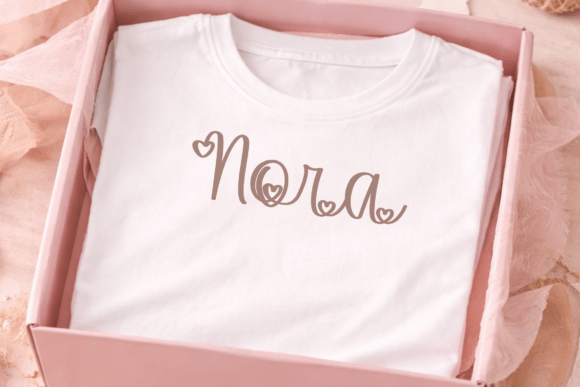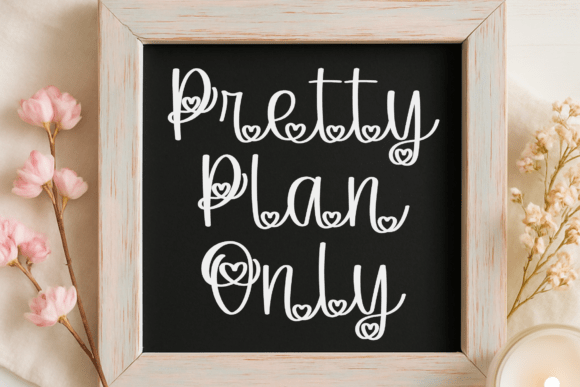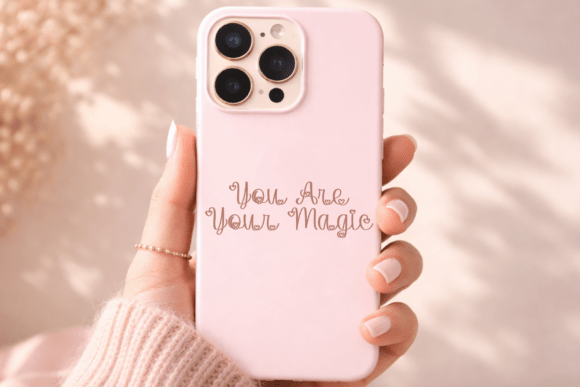
Introduction to Heart Script Font
Who hasn’t felt the excitement of brainstorming a new creative project? Maybe it’s a custom wedding invitation, a heartfelt birthday card, or a sweet social media post. As designers, we know that finding the right font can make all the difference in bringing our ideas to life. And that’s where the enchanting Heart Script Font comes in – a delightful, high-quality design resource that’s sure to capture the hearts of your audience.
With its adorable heart-shaped details and soft, flowing strokes, Heart Script Font is the perfect addition to any creative project. Whether you’re working on a romantic design, a Cricut craft, or a planner decoration, this charming font is sure to add a touch of warmth and personality to your work. And the best part? It’s available for a free download, making it an accessible and valuable resource for designers of all levels.
Key Features of Heart Script Font
- High-quality, handwritten font ideal for creative projects
- Designed with a unique, elegant style that’s perfect for wedding invitations, quotes, and other romantic designs
Honest Review: Heart Script Font
I recently came across the Heart Script Font, a beautiful, high-quality font that’s perfect for adding a touch of elegance to your creative project. The font features a stunning, handwritten style that’s reminiscent of classic love letters.
- Beautiful, high-quality design that’s perfect for romantic or whimsical projects.
- Can be easily used for a variety of creative projects, including invitations, social media graphics, and more.
While the Heart Script Font is a beautiful font, it does have some limitations. One of the main issues is that it may not be suitable for large blocks of text, as it can become difficult to read.
Overall Impression
Overall, I’m really impressed with the Heart Script Font. It’s a beautiful, high-quality font that’s perfect for adding a touch of elegance to your creative project. While it may have some limitations, it’s still a valuable design resource that’s worth checking out.
Design Tips
To get the most out of Heart Script Font, use it in creative projects that require a high-quality, elegant touch. This font is perfect for wedding invitations, birthday cards, or any other design that requires a personal and romantic feel. You can also use it to add a touch of sophistication to your branding or marketing materials.
Heart Script Font is a versatile design resource that can be used in a variety of creative projects, including:
- Birthday cards and party invitations
- Branding and marketing materials
- Photography captions and quotes